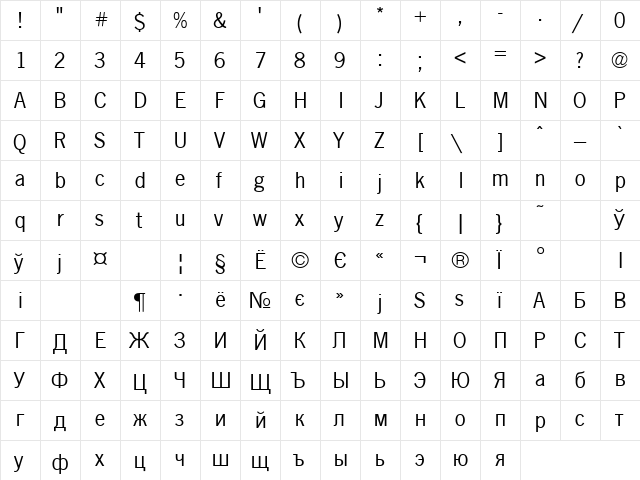
NewsGothic_A.Z_PS Normal
Design Context for NewsGothic_A.Z_PS Typeface
NewsGothic_A.Z_PS takes a clean, functional approach — its unadorned letterforms prioritise legibility and work reliably across screen and print environments.
Font Pairing: Works well alongside a characterful serif or display font that can carry the expressive load while NewsGothic_A.Z_PS handles the functional copy.
Pro Tip: Pair NewsGothic_A.Z_PS with a display or serif font for headlines — its neutral character makes it an excellent supporting player in complex typographic systems.